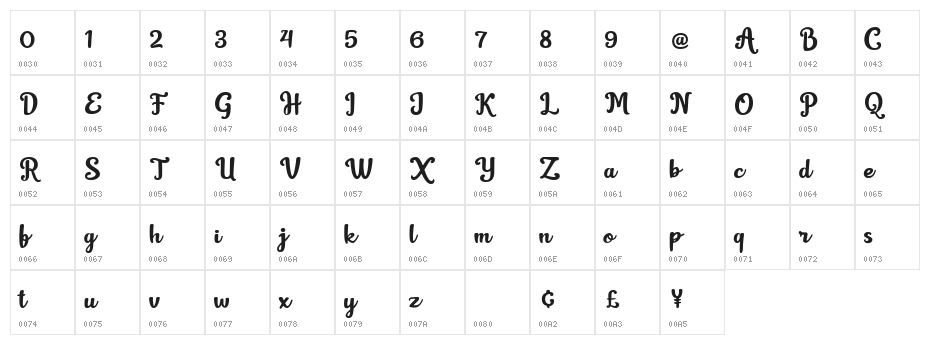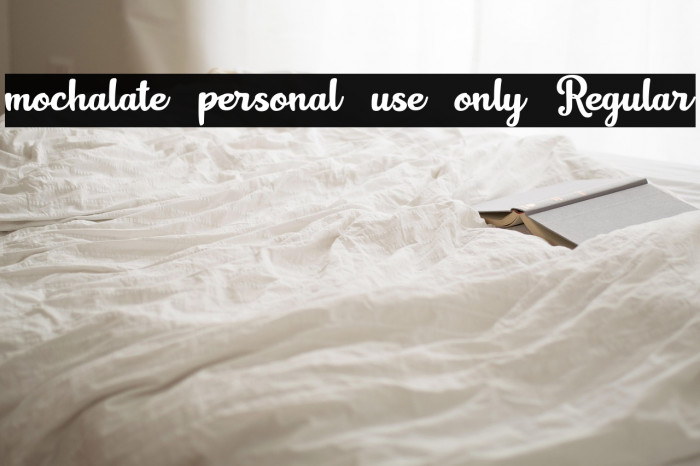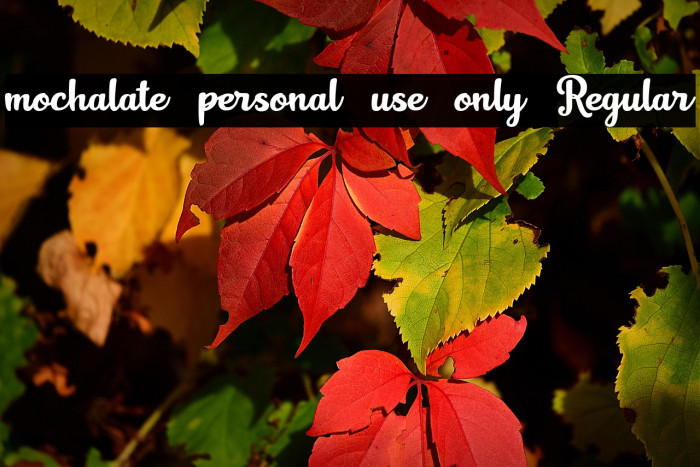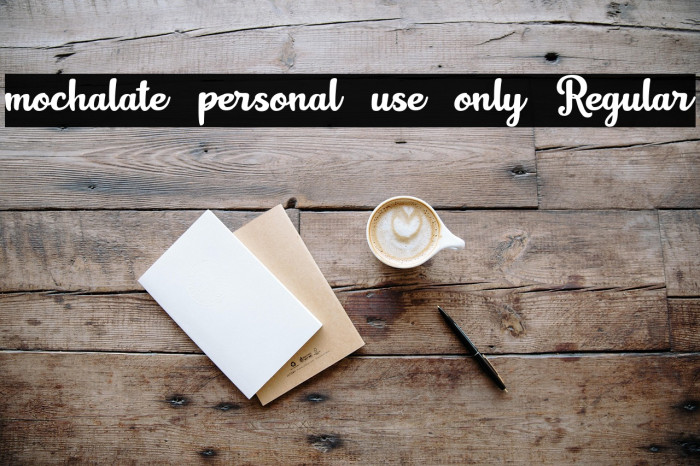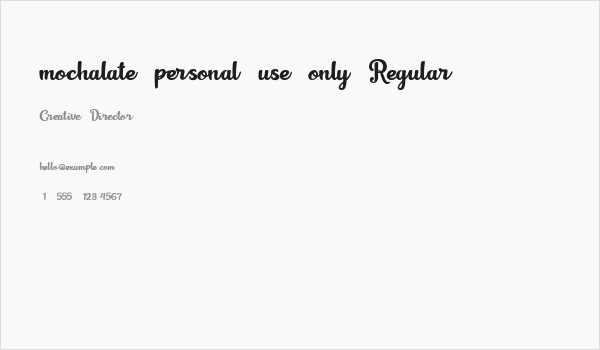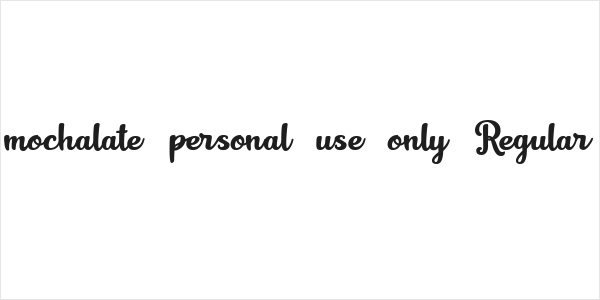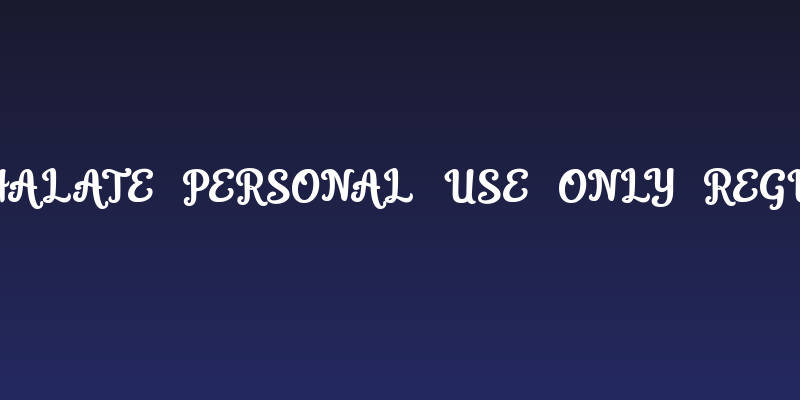
mochalate personal use only Regular Font
mochalate personal use only Regular Description
This font features a playful and whimsical design with a bold and rounded appearance. The characters are crafted with smooth curves and a consistent stroke width, giving it a friendly and approachable feel. The uppercase letters have a decorative flair with subtle embellishments, while the lowercase letters maintain a cohesive style with slightly exaggerated loops and tails. The numerals are clear and easy to read, matching the overall playful aesthetic. This font is suitable for projects that require a touch of fun and creativity.
| Proposed Projects | Ideal for children's books, playful branding, greeting cards, and creative posters. |